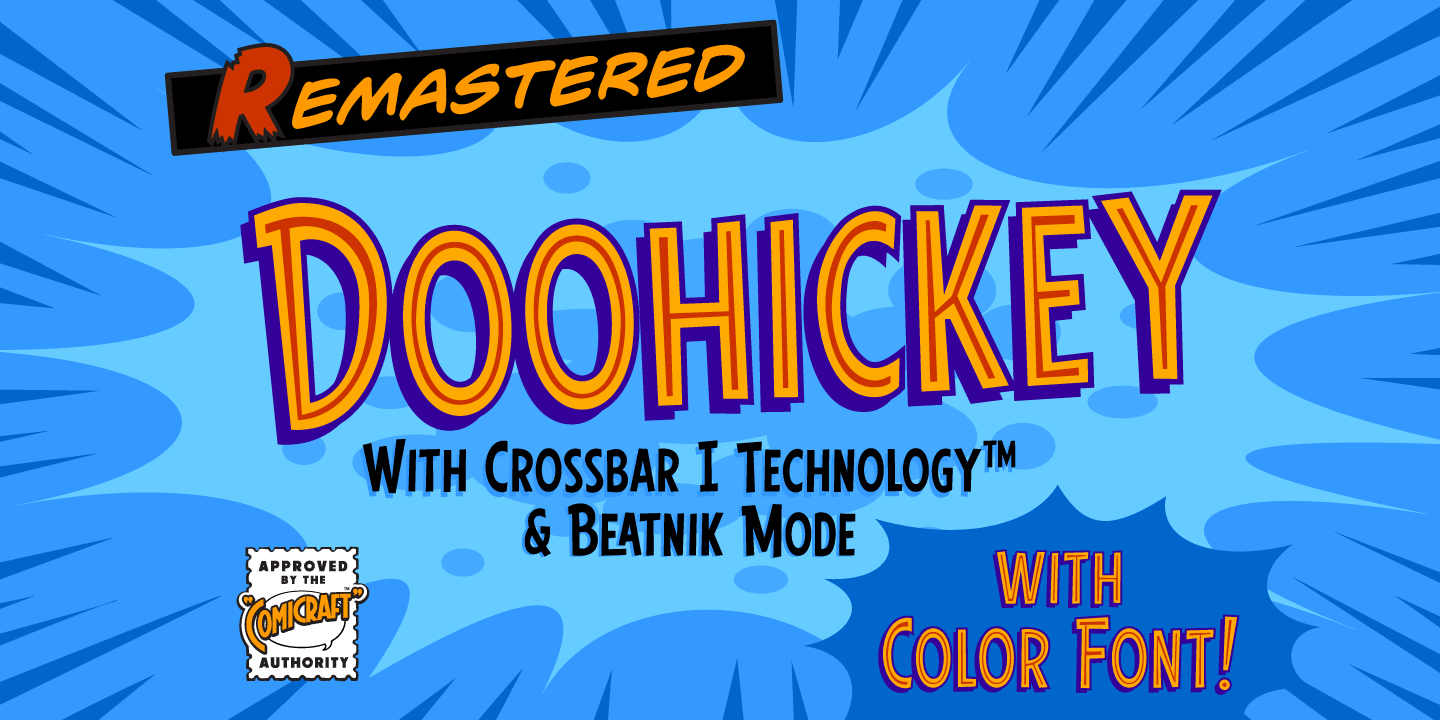
Doohickey Font is ideal for quirky gadget shops, vintage toy stores, whimsical invention showcases, creative workshops, playful tech startups, novelty gift retailers, eccentric engineering firms, fun hardware stores, imaginative maker spaces, clever device packaging, humorous patent applications, and charming contraption displays.
This font is exciting because it captures the delightful quirkiness and ingenious charm of mysterious gadgets and wonderful whatsits that make life more interesting, featuring playfully inventive letterforms that embody the same clever creativity and endearing eccentricity found in grandfather's workshop where every strange contraption has a purpose and every peculiar doohickey solves a problem nobody knew they had. The whimsical character design reflects both the practical ingenuity of clever inventors and the childlike wonder that comes from discovering how fascinating gadgets work, creating typography that feels both intelligently crafted and delightfully unpredictable. Each letter radiates the kind of curious charm and inventive spirit that transforms ordinary text into expressions of creative problem-solving and mechanical wonder.
The Doohickey Font family includes regular weight with complete character sets featuring inventive numerals, quirky punctuation marks, and decorative elements inspired by gears, springs, widgets, mechanical parts, and whimsical contraptions. Advanced versions may offer additional stylistic variants with enhanced mechanical effects, alternate characters that create gadget-like connections, and ornamental elements that celebrate the spirit of invention and creative engineering.
Whether you're developing quirky product branding, creating inventive marketing materials, or designing playful educational content, Doohickey Font Free Download provides the clever charm and inventive spirit your project needs to capture the imagination of audiences who appreciate creative solutions and ingenious gadgets that make everyday life more interesting. This typeface transforms ordinary text into delightful expressions that celebrate human ingenuity and the joy of discovering how things work. The font's inventive character makes it perfect for brands that embrace creativity, problem-solving, and the wonderful world of useful gadgets. Creative inventors and quirky brand designers will love how this font brings authentic inventive charm to their work with its genuinely clever and delightfully mechanical character that celebrates the magic of creative engineering.